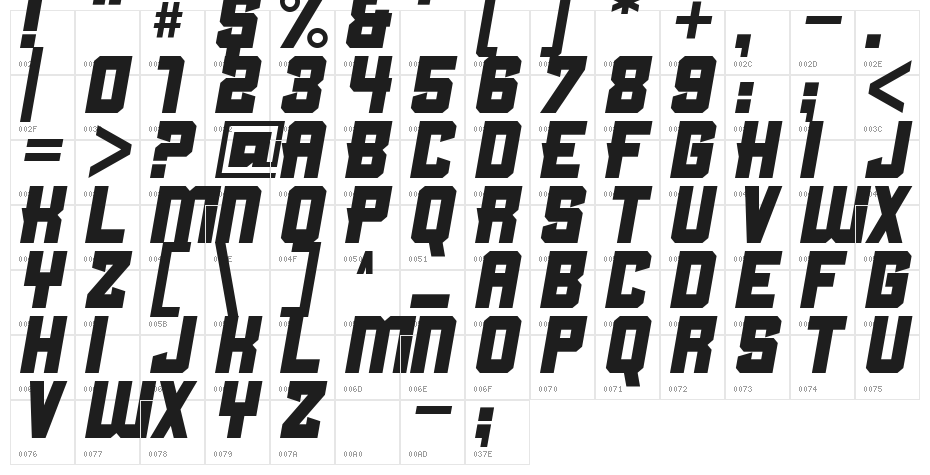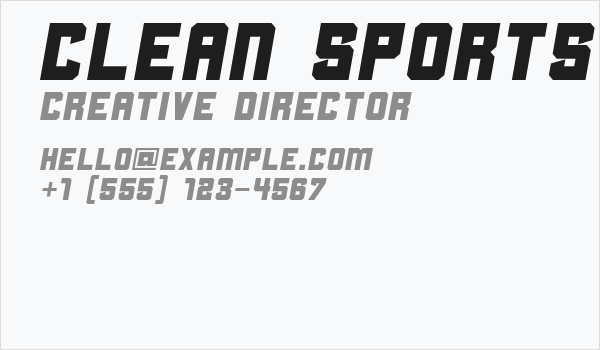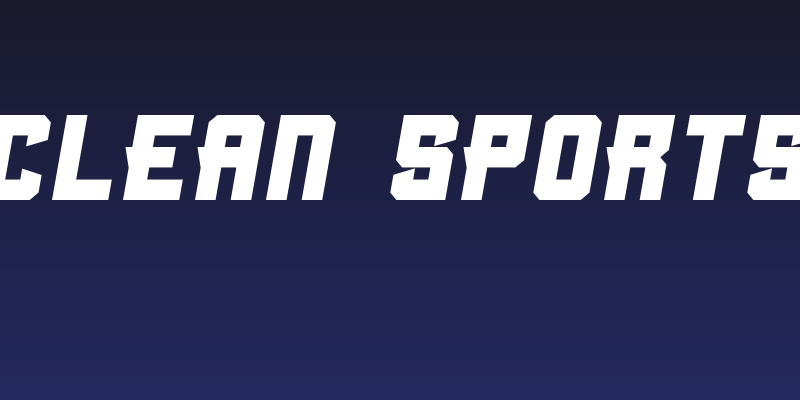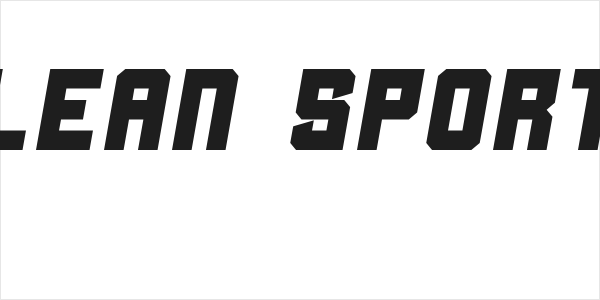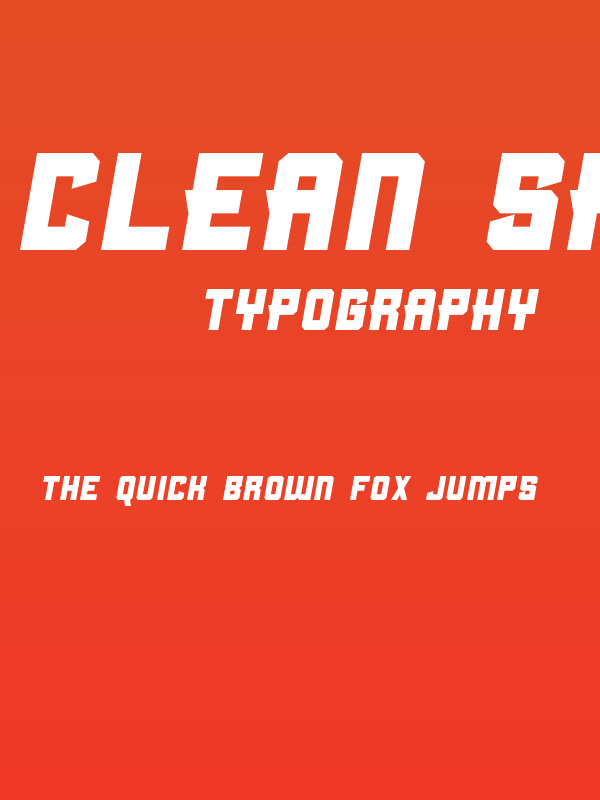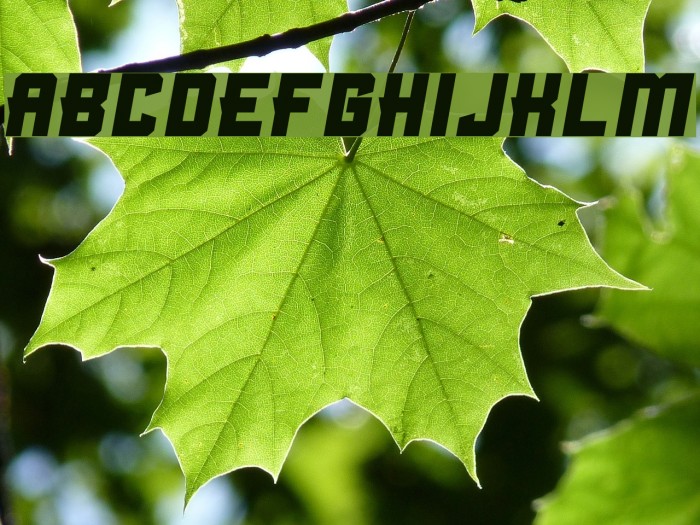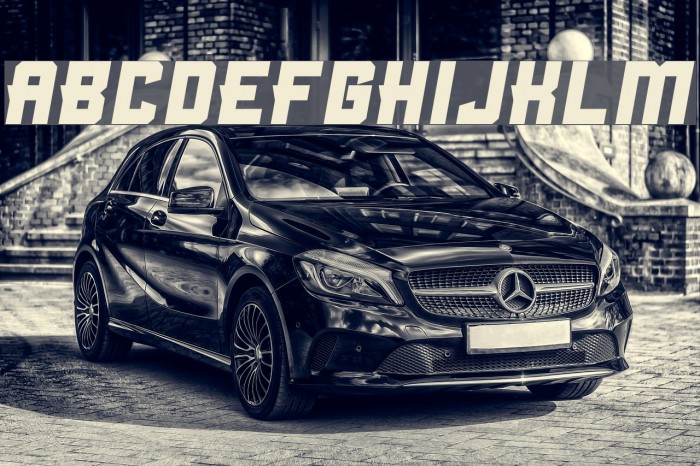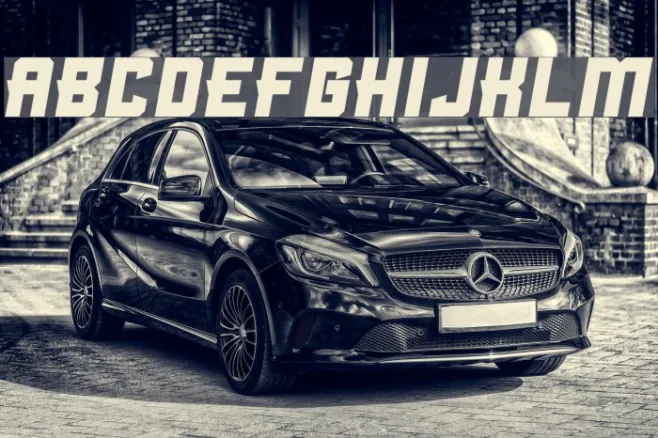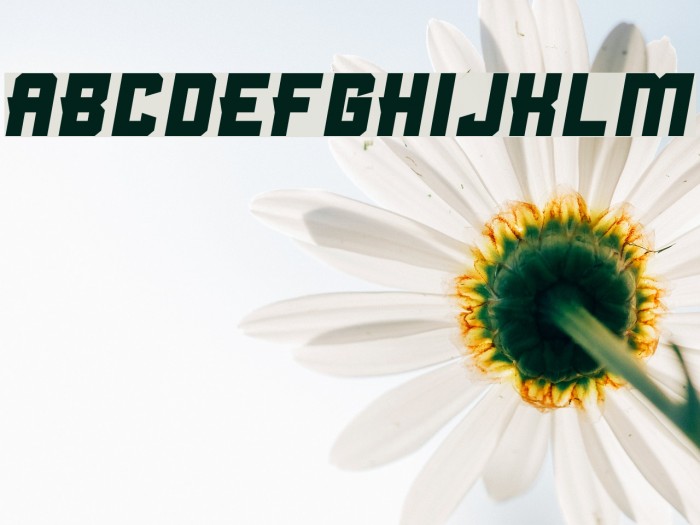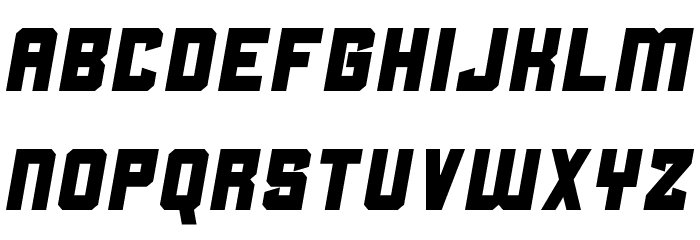
Clean Sports Font
Clean Sports Description
This font features a bold and dynamic style with sharp, angular edges and a slightly italicized slant, giving it a sense of motion and energy. The characters are blocky and robust, making them highly legible and impactful. The uppercase and lowercase letters maintain a consistent design, with the lowercase mirroring the uppercase in form and structure. The numerals and special characters follow the same bold and angular aesthetic, ensuring uniformity across all glyphs. This font is ideal for projects that require a strong and assertive visual presence.
| Proposed Projects | Ideal for sports branding, action-packed posters, dynamic logos, and energetic headlines. |